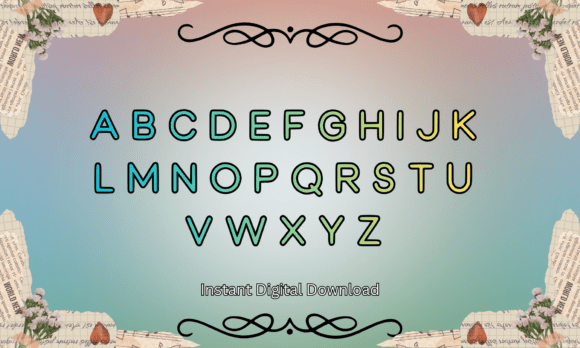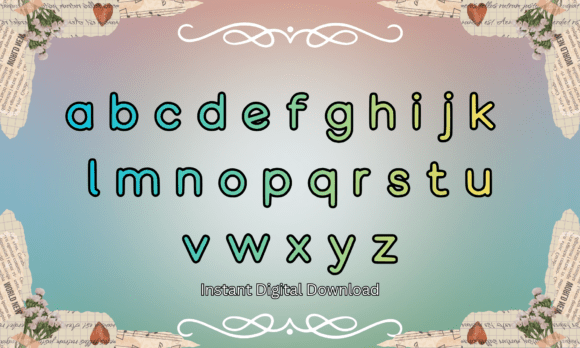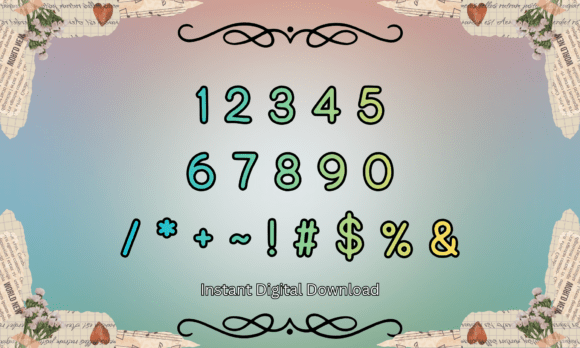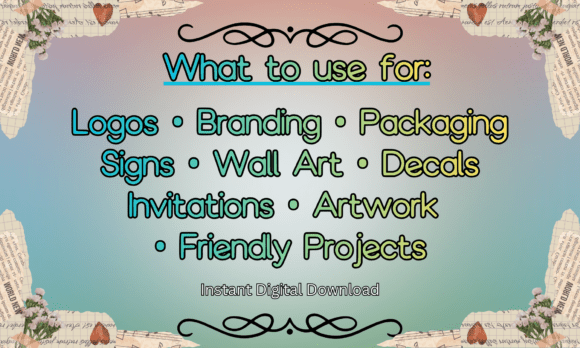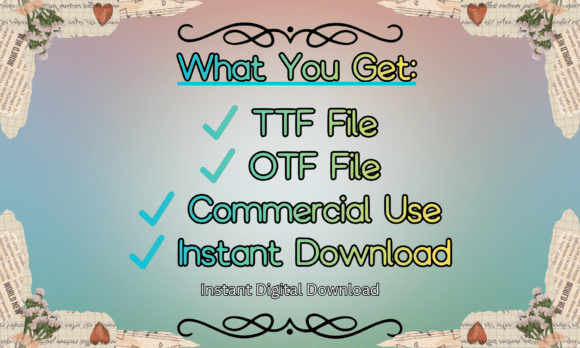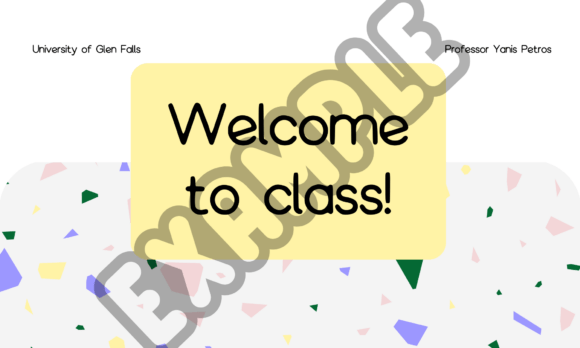
Welcome to the World of Friendly Rounded Fonts
Do you remember the first time you held a crayon and brought a colorful picture to life? The sense of excitement and pride that came with creating something with your own hands is a feeling many designers strive to evoke in their work. And that’s exactly what Friendly Rounded Font is all about – creating a sense of warmth and approachability in every project.
As a soft, cheerful display font, Friendly Rounded is perfect for designers who want to add a touch of playfulness to their designs without sacrificing professionalism. With its smooth curves and bubbly letterforms, this font is ideal for a wide range of projects, from kid-friendly designs to small-business branding. Whether you’re working on stickers, planners, or social media graphics, Friendly Rounded Font is sure to bring a smile to your face and a touch of personality to your work.
Friendly Rounded Font Key Features
- Font Family: A clean, modern sans-serif font with rounded edges, ideal for body text and headings.
- Unique Characteristic: The font’s rounded edges and subtle curves create a friendly and approachable feel, perfect for branding and design projects.
Designer Review: Friendly Rounded Font
I’ve had the chance to work with the Friendly Rounded Font, and I must say it’s a mixed bag. Here are my thoughts:
- Soft and approachable feel: The Friendly Rounded Font’s rounded edges and gentle curves make it perfect for designs that need a friendly, approachable vibe.
- Clear readability: Despite its rounded feel, the font is still highly legible, even at smaller sizes.
- Customization options: The font comes in a range of weights and styles, making it easy to customize to fit your design needs.
- Lack of sophistication: For more formal or professional designs, the Friendly Rounded Font may come across as too casual or immature.
- Limited versatility: While the font is great for friendly designs, it may not be the best choice for more dramatic or high-contrast designs.
Overall, the Friendly Rounded Font is a solid choice for designs that need a soft, approachable feel. However, it may not be the best fit for more formal or dramatic designs. With a bit of careful consideration and customization, it can be a great addition to your design toolkit.
Getting the Most Out of Friendly Rounded Font
To get the most out of Friendly Rounded Font, consider the following tips:
- Use it for headings and titles to create a warm and inviting tone.
- Pair it with a bold font for contrast and visual interest.
- Experiment with different font sizes and colors to create a cohesive design.
Friendly Rounded Font is ideal for:
- Branding and logos.
- Food and beverage packaging.
- Children’s products and educational materials.
Alternatives to Friendly Rounded Font
Playfair Display is a luxurious, high-end font with elegant and refined flair. It is suitable for use in branding, advertising, and high-end publications. When to use: For projects requiring a touch of sophistication and luxury.
Comparison: While Friendly Rounded Font is friendly and approachable, Playfair Display is more formal and sophisticated. Playfair Display has a more intricate design and is often used for highlighting titles and headings.